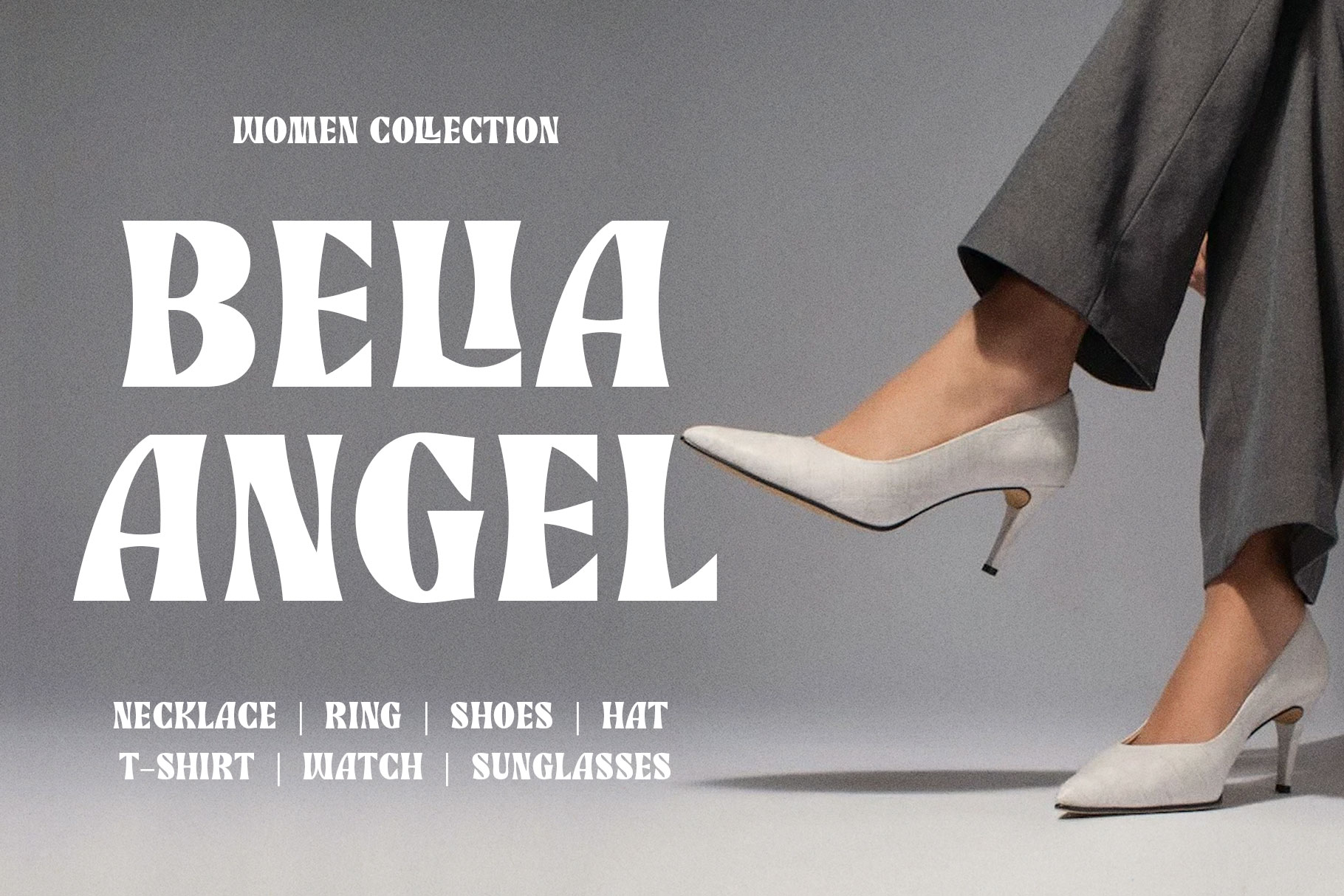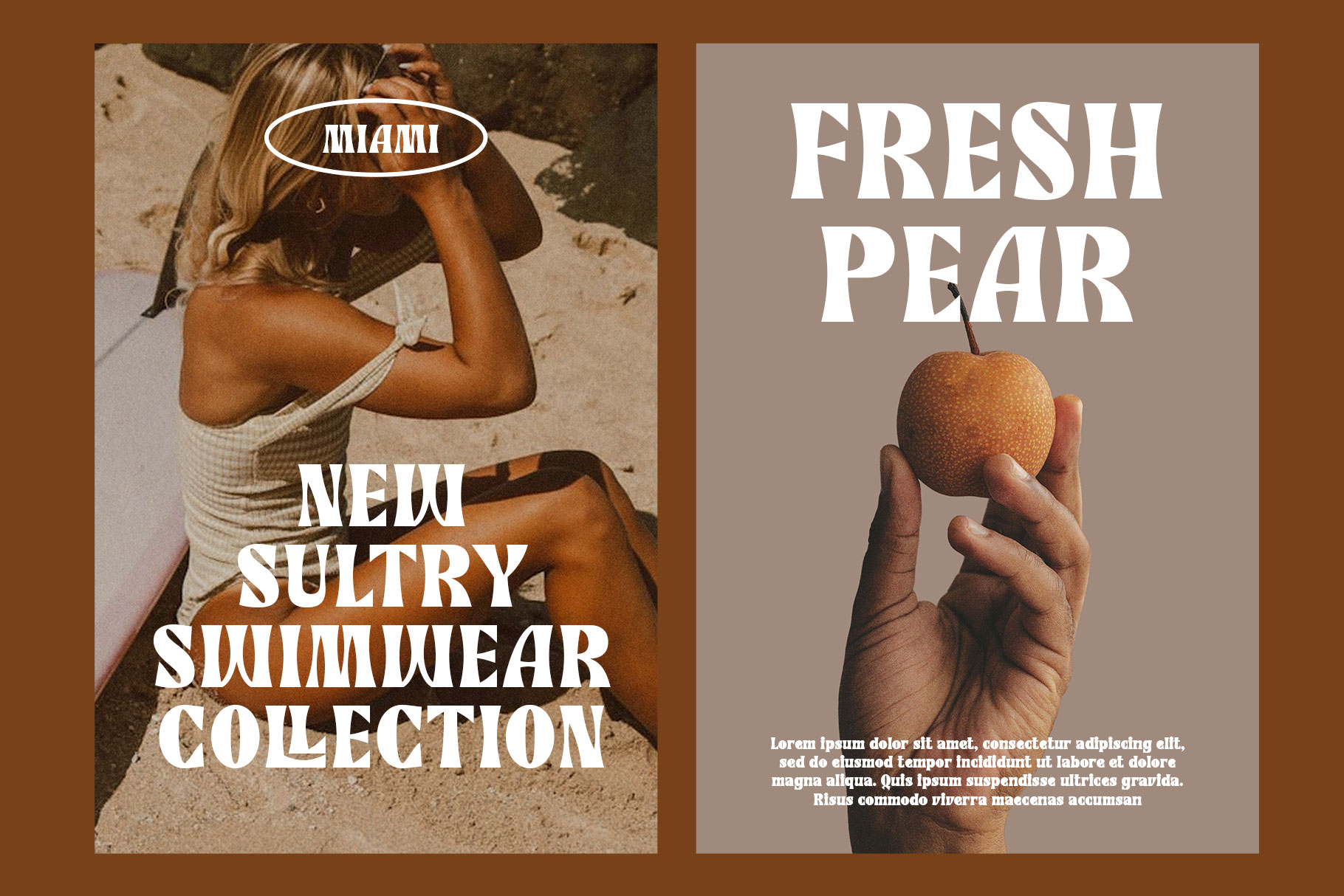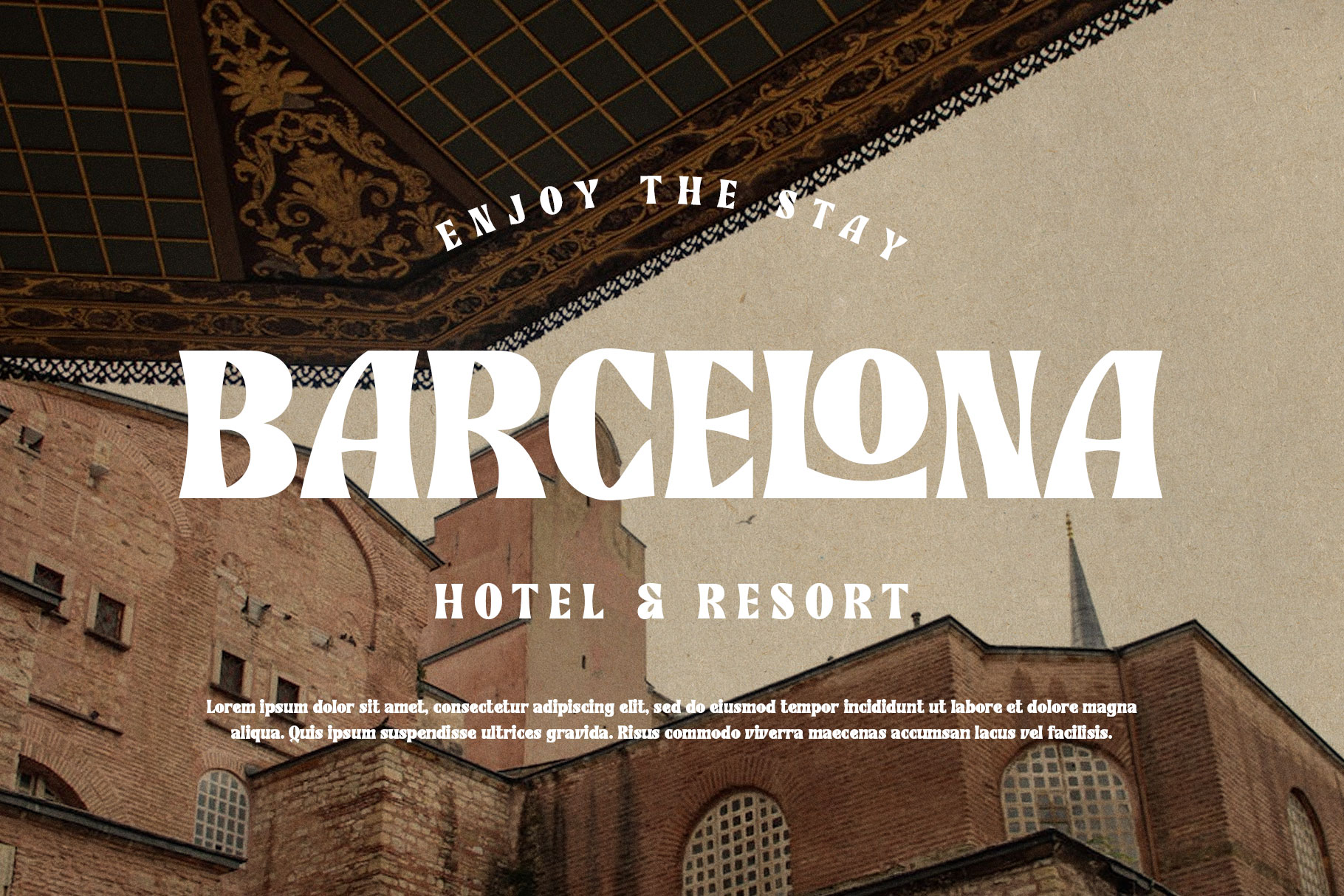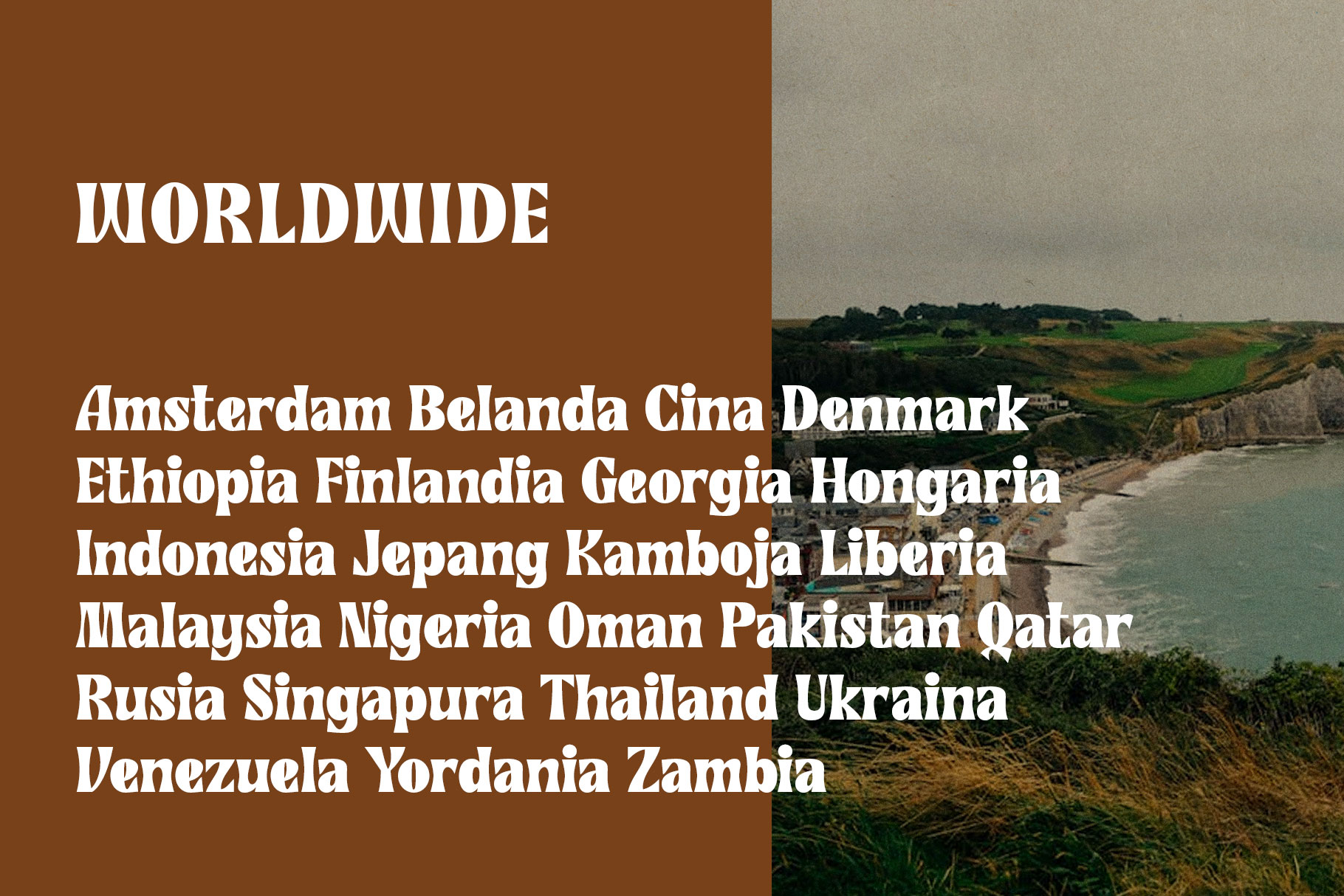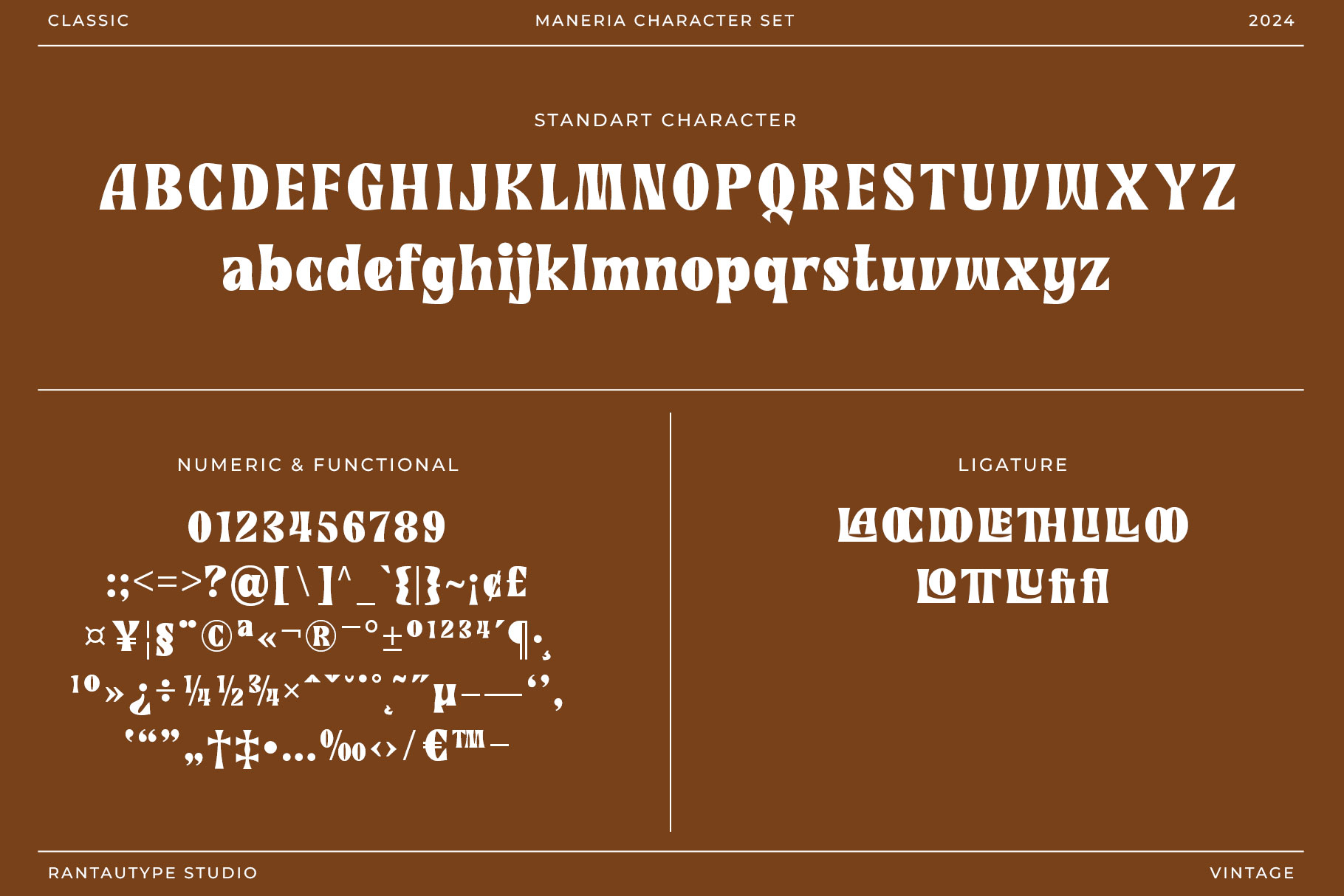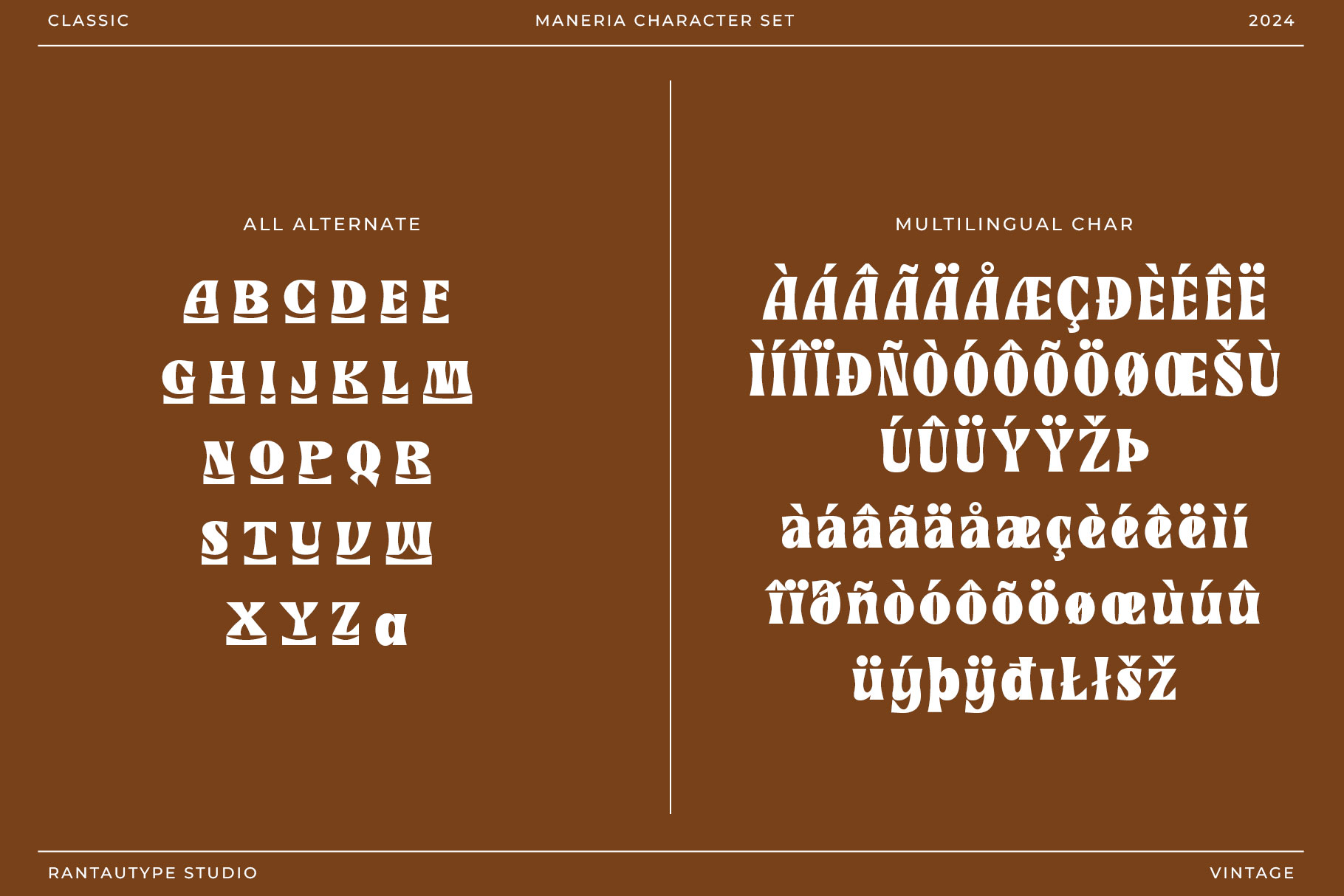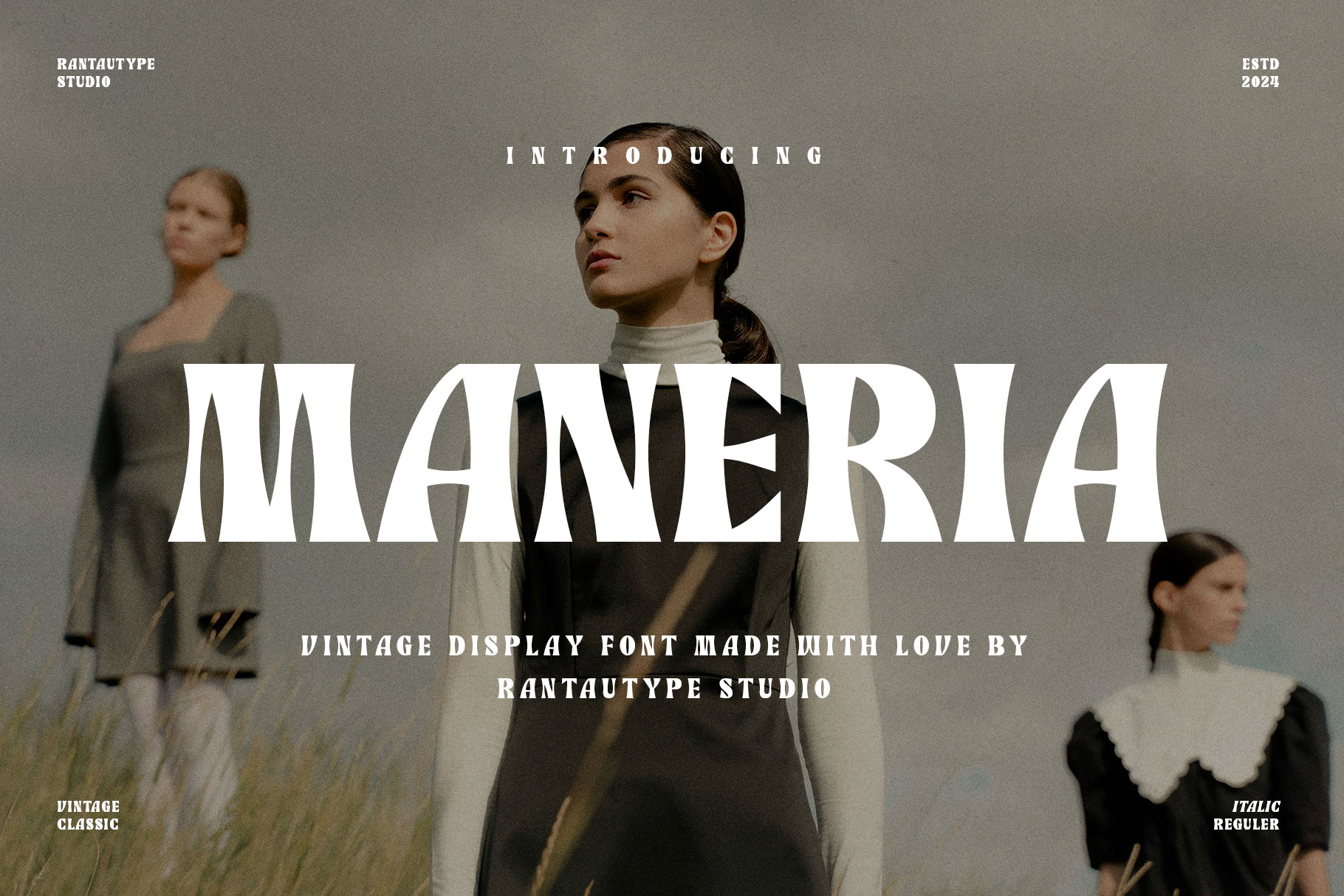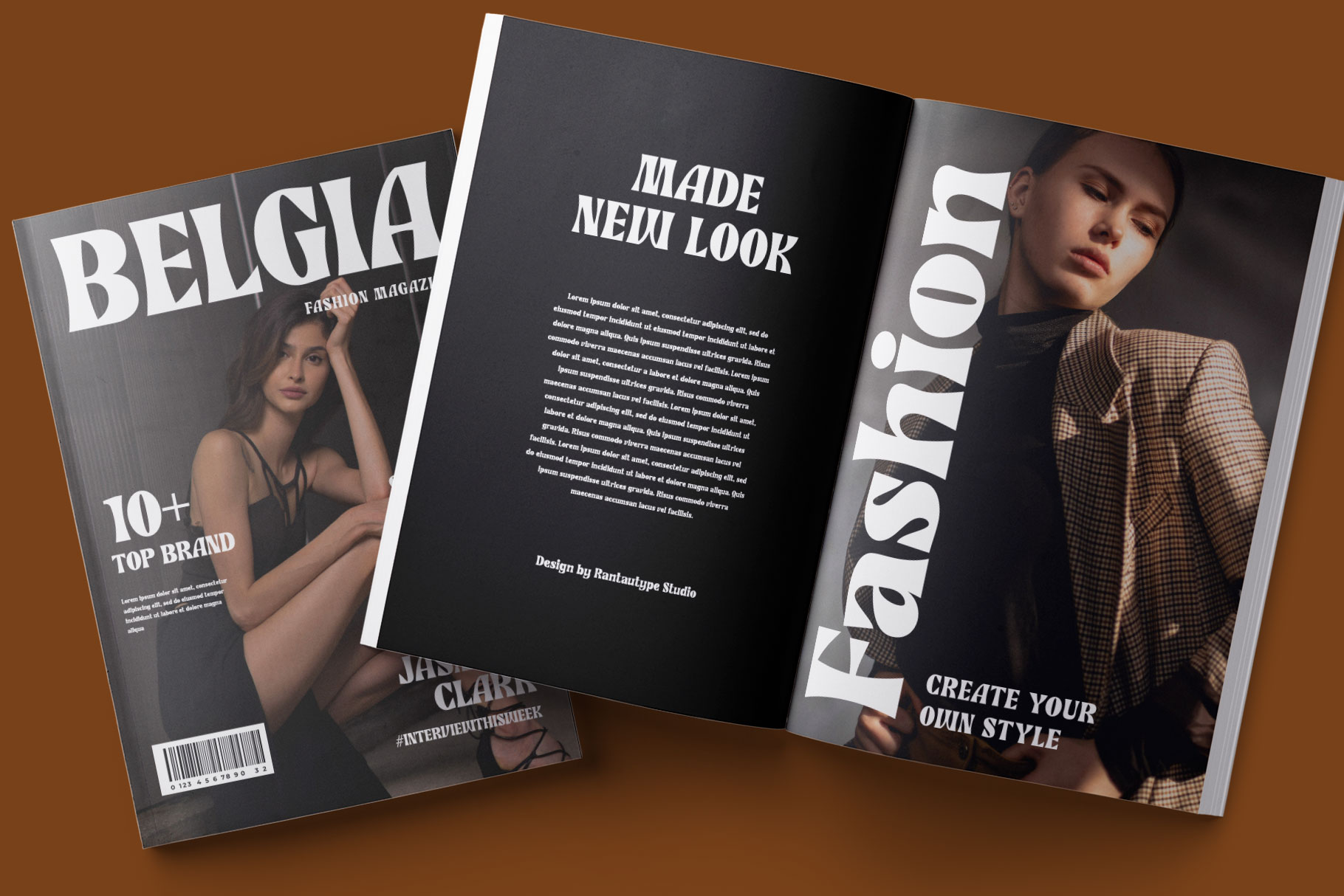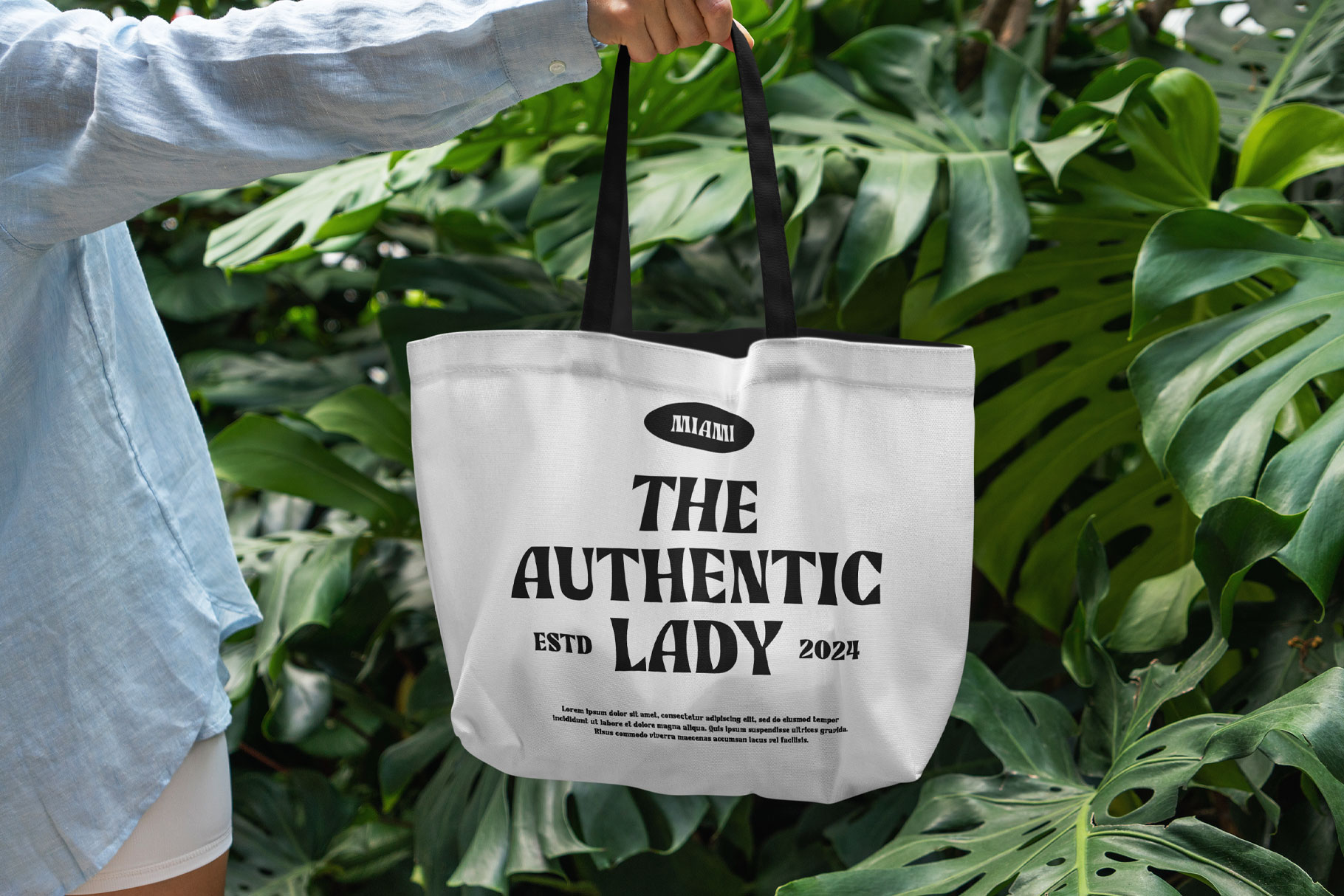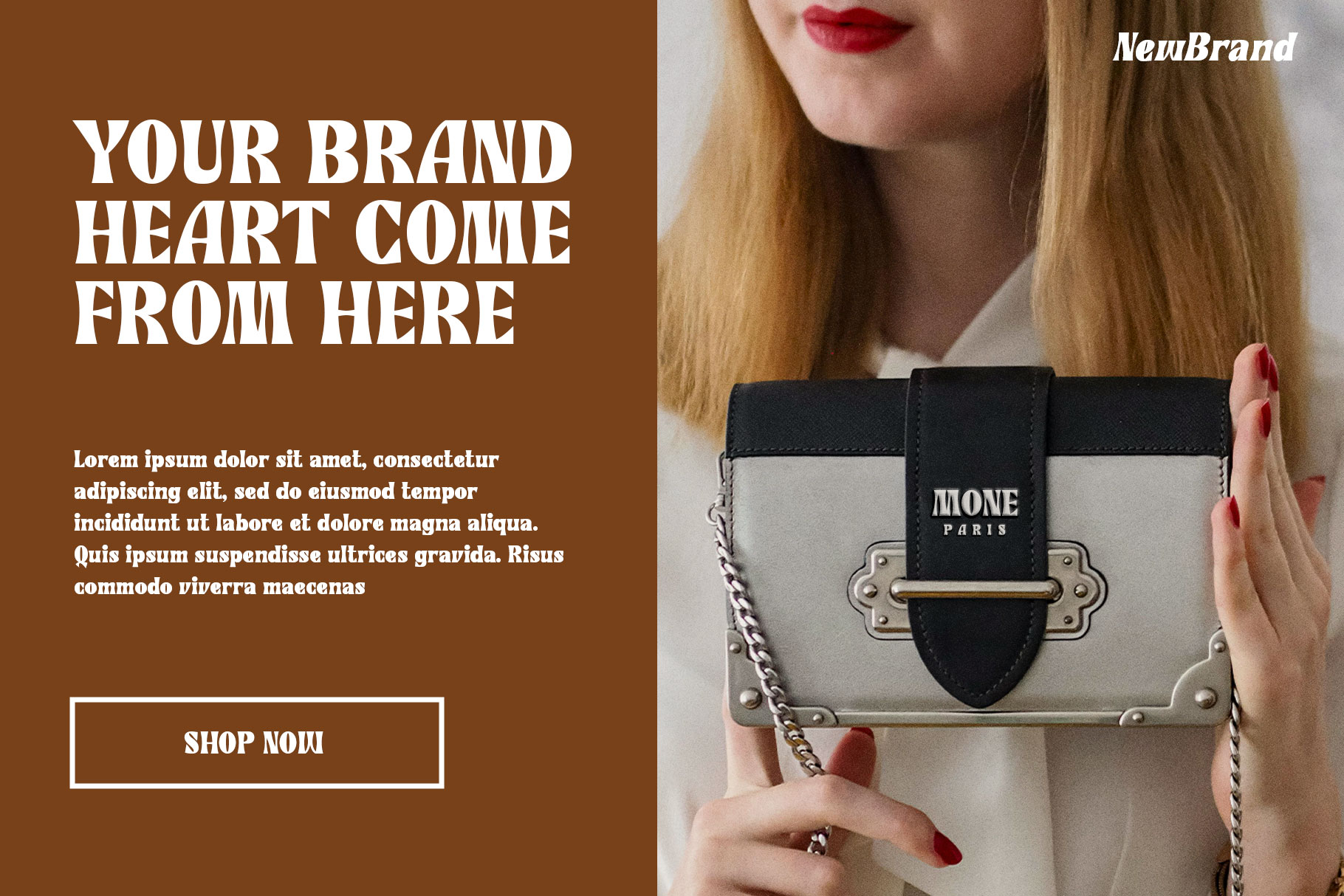
Maneria Display Vintage Font
Maneria is display vintage font with contrast culture character. Maneria bring back to classic moment but embrace grace. Maneria is a perfectly choice for any creative endeavor, chic, lifestyle design such as logos, advertisements, stationery, branding project, display and magazine, invitation, corporate brand, product design, label, business project and many other project with elegant vintage touch.